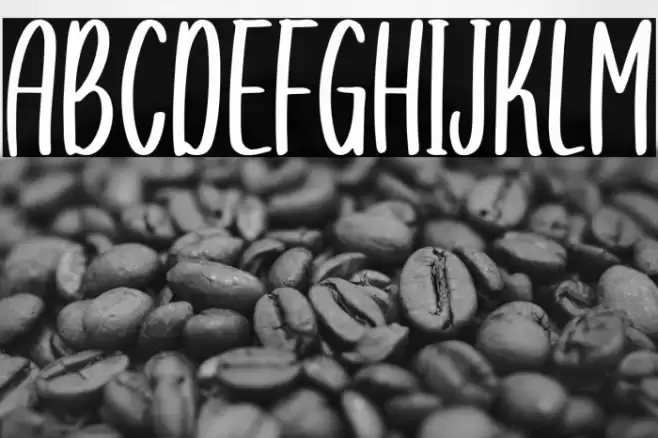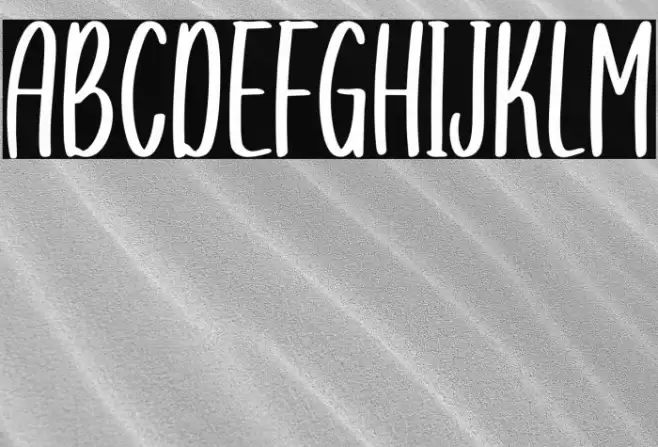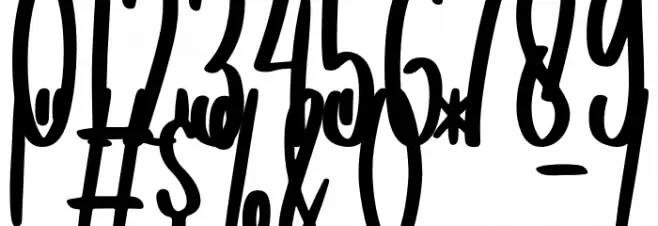
You are my everythink display f Font
You are my everythink display f Description
This font features a bold, handwritten style with elongated, narrow characters that convey a sense of modern artistry and personal expression. The uppercase and lowercase letters maintain a consistent height, creating a uniform appearance across the text. The numbers and special characters follow the same stylistic approach, ensuring cohesion throughout. The strokes are thick and consistent, providing a strong visual impact. This font is ideal for projects that require a personal touch or a creative flair, such as invitations, posters, or branding materials. Its unique style makes it stand out, while still being legible and versatile.
A bold, handwritten font with elongated, narrow characters and a modern artistic flair from Uncategorized fonts.
- Font: You are my everythink display f
- Proposed Projects: Ideal for creative projects like invitations, posters, branding, and artistic displays.
- Use Case: Headlines, Logos, Artistic displays